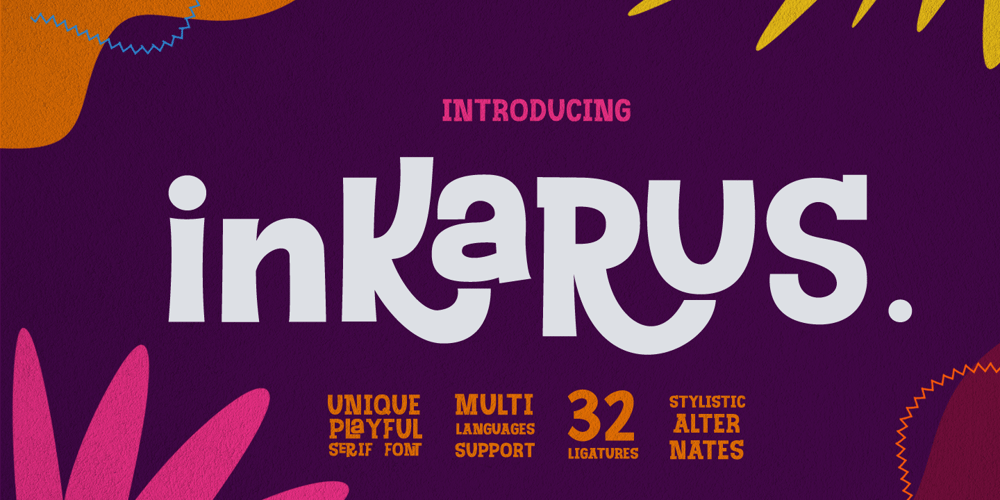
Inkarus
Inkarus font
Inkarus Font Family was designed by Gitayogi Irhandi and published by Scratch Design. Inkarus contains 1 styles and family package options. Introducing Inkarus a playful font with a bold and all uppercase characters style. This font is perfect for posters designs, packaging, logotype, title, label, print ads, gift card, magazine title, movie title, sign, and the beautiful and curvy shape will give your designs that alternative look to your creative work looks innovative. Amazing curvy was hand-drawn and make the outlines look irregular and beautiful. This font has a lot of hand-lettered looks and the characters give a retro or urban feel. Inkarus has a serif style but can collaborate with sans-serif style together because the modern bold sans serif typeface has been the alternatives and ligatures of this font. Combine that bold shapes together will make your work a more unique, retro attitude. Ligatures Inkarus has 32 ligatures that you can turn on via the glyphs panel in Adobe applications. The ligatures make a innovative difference in the look of this font. It switches out between serif and sans serif styles that make your designs look still unity. Opentype The Alternatives and Ligatures use OpenType features. First, you will need a design app to access these options an application such as Adobe Photoshop, Illustrator, or InDesign. Alternatives All lowercase a,d,e,h, I, j,k,l,m,n, p,r, t, r you can switch out letters for other and makes your design look more like hand-lettering and innovative although you using in a repetitive way. Inkarus font includes; All uppercase characters 32 ligatures option Support for multi-languages characters Punctuation, Symbols, and Numbers Alternative lowercase characters ( a,d,e,h, I, j,k,l,m,n, p,r, t, r ) The font format is OTF So what you are waiting for? Grab it fast this font and make your innovative design. If you have any questions drop me a message.